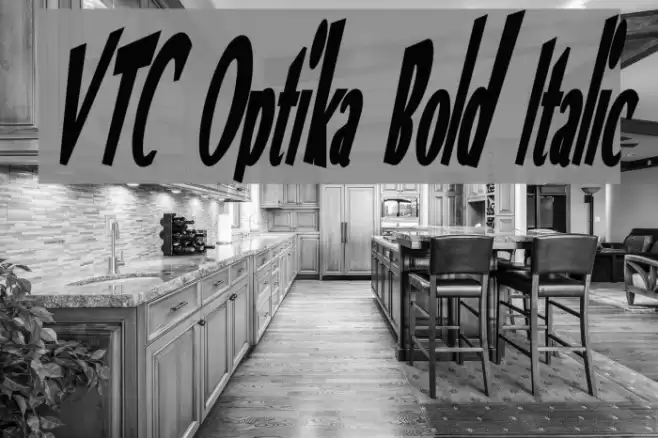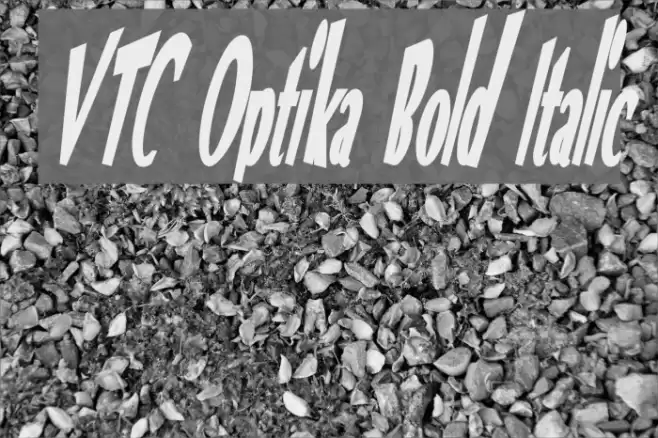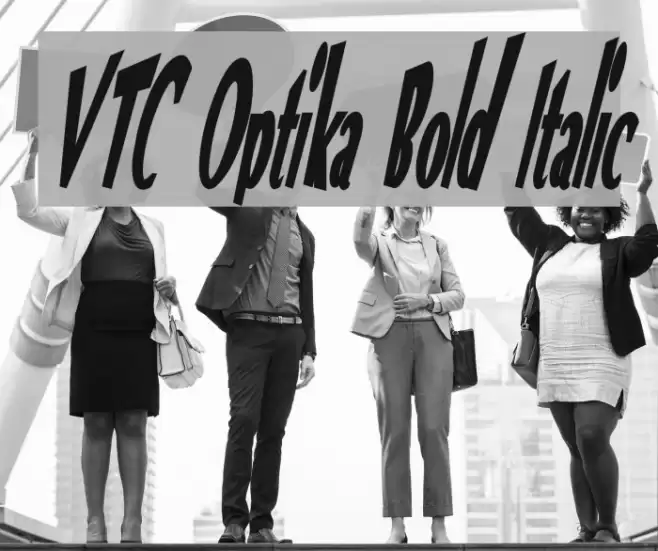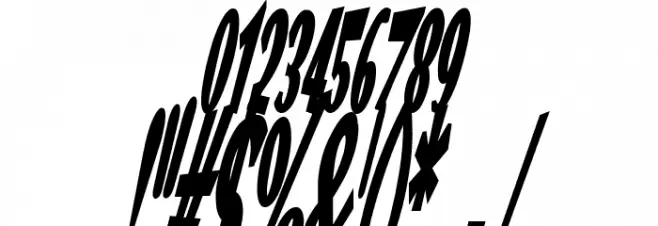
VTC Optika Bold Italic Font
VTC Optika Bold Italic Description
This font exhibits a bold and italicized style, characterized by its strong, slanted letterforms that convey a sense of motion and urgency. The uppercase and lowercase letters are consistently angled, creating a dynamic appearance. The numerals and special characters maintain this slant, ensuring uniformity across all glyphs. The strokes are thick, contributing to the boldness, while the italic slant adds a sleek, modern touch. This font is highly legible, even at smaller sizes, due to its clear and distinct character shapes.
A bold, italicized font with strong, slanted letterforms for a dynamic look from Uncategorized fonts.
- Proposed Projects: Ideal for projects that require a bold statement, such as headlines, posters, and advertisements. Its dynamic style is also suitable for branding and logo design.